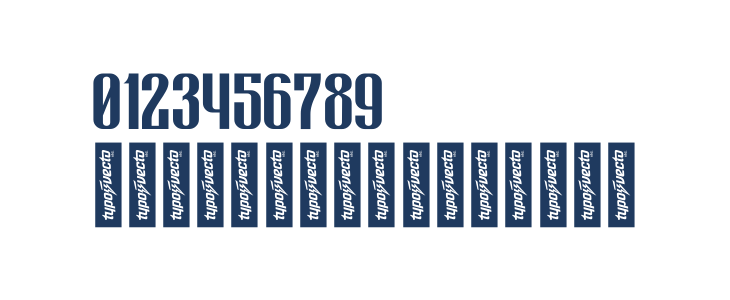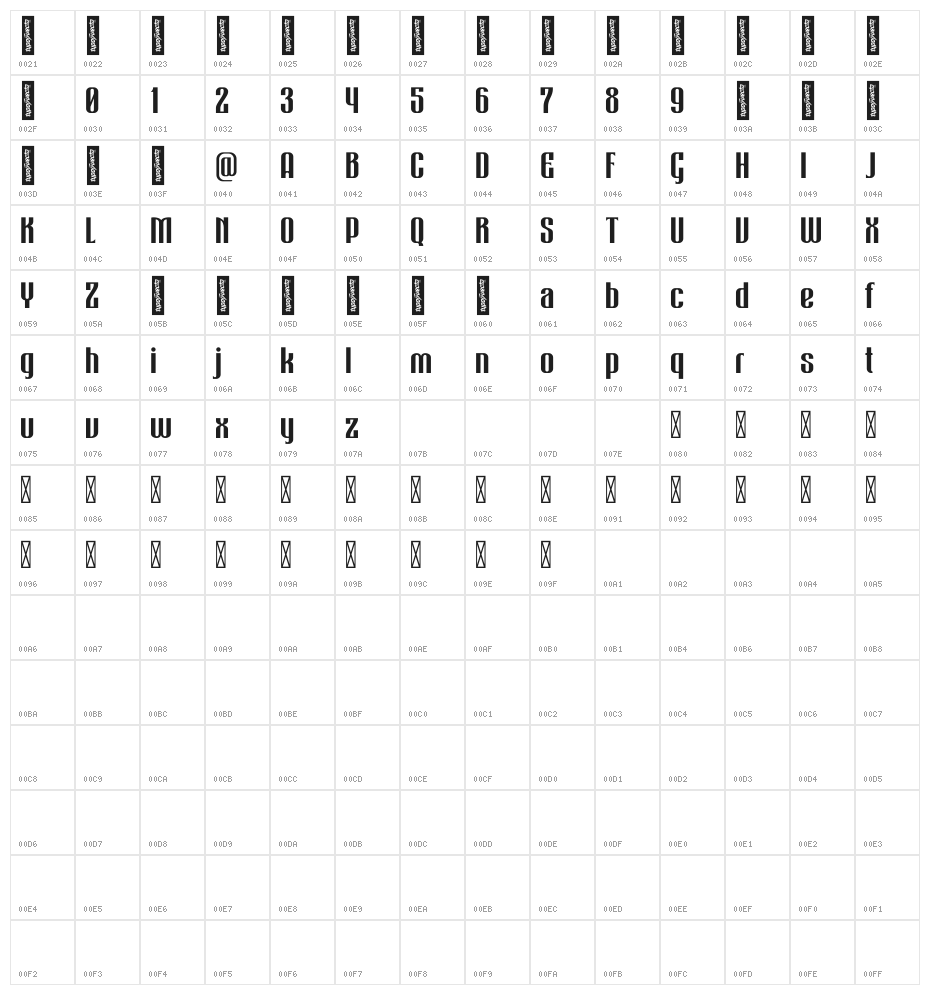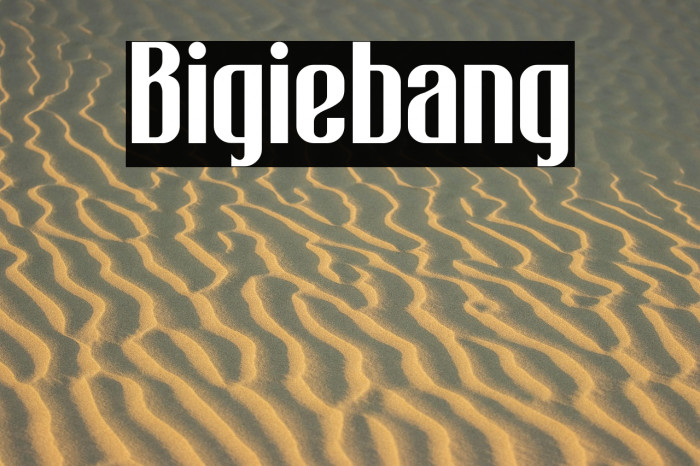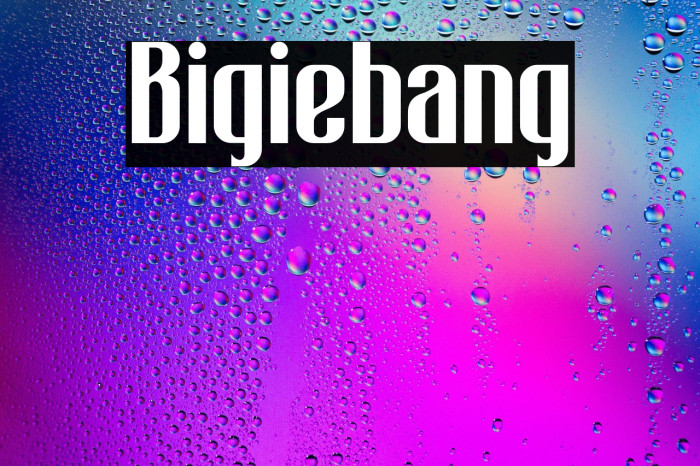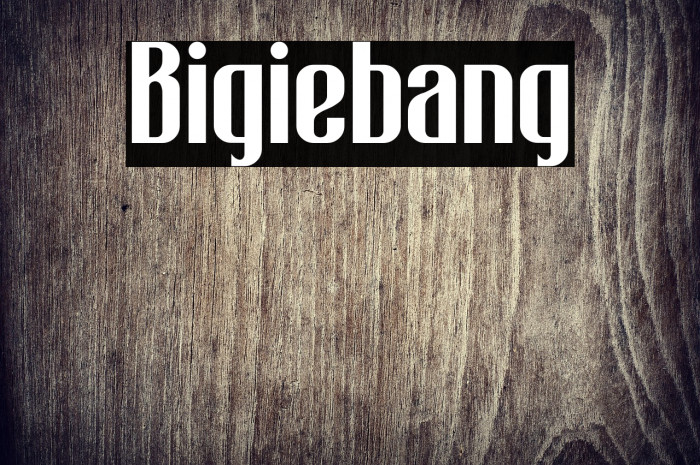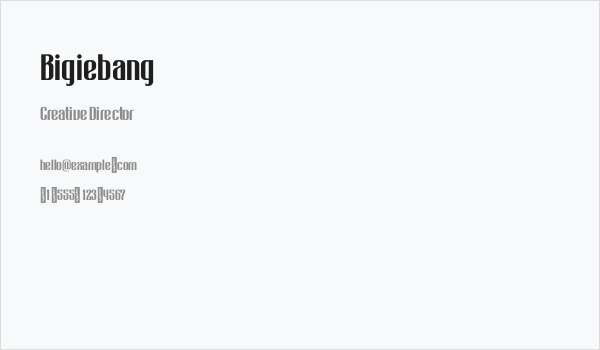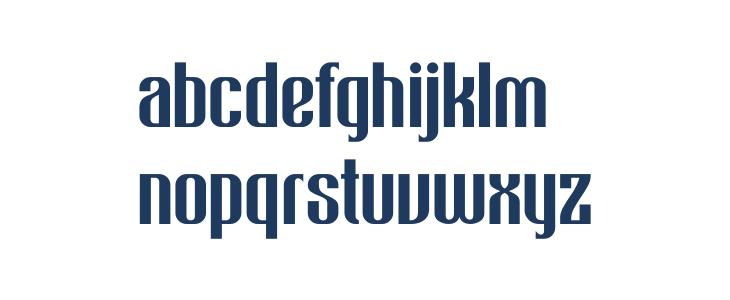
Bigiebang Font
Bigiebang Description
This font features a bold and condensed style with a modern and sleek appearance. The characters are tall and narrow, giving a strong vertical emphasis. The uppercase letters are particularly striking, with a uniform stroke width that adds to the boldness. The lowercase letters maintain the same condensed style, ensuring consistency throughout the typeface. The numerals are equally bold and condensed, making them highly legible. The special characters are designed to match the overall aesthetic, providing a cohesive look. This font's unique style makes it suitable for impactful designs.
| Proposed Projects | Ideal for headlines, posters, branding, and any design requiring a strong visual impact. |